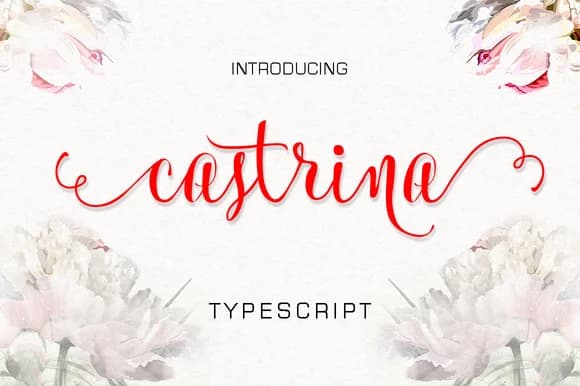
Castrina by LostvolType is an expressive script typeface that honors the spontaneity of hand lettering while delivering the reliability modern design demands. The flowing movements of each letter capture genuine penmanship sensibilities, yet the design maintains excellent clarity across both headline and text applications. This thoughtful balance between organic expression and functional precision makes Castrina equally compelling whether used subtly within a broader layout or featured as a commanding focal point. The typeface's letterforms feel personal without sacrificing the professionalism required for contemporary projects.
The typeface shines in specialized contexts where personal connection enhances communication. Consider it for wedding invitation suites and save-the-date designs, personalized greeting cards with artisanal character, luxury product labels for boutique beauty or specialty food brands, and distinctive hand-lettered signage for independent retail spaces. Castrina works beautifully within fashion branding, lifestyle packaging, social media graphics where authenticity matters, and editorial design that benefits from humanized letterwork. Its versatility extends across stationery systems, cosmetic packaging, and print projects seeking the warmth of manual craftsmanship.
- Elegant, Flowing, Castrina Typescript
Castrina Font is a script font that shines as a display or heading face. Pair it with a clean sans-serif or serif font for body text β the contrast creates a clear hierarchy while the two styles stay balanced and easy to read.
Castrina Font